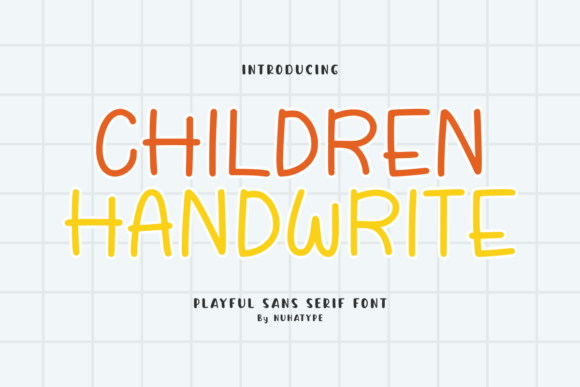
Discover the Joy of Handwritten Creativity
Do you remember the feeling of holding a crayon in your hand, scribbling down your first words, and watching them come to life? For many of us, that spark of creativity never fades. As a designer, you’re likely no exception. Whether you’re crafting for kids or simply looking for a way to add a personal touch to your projects, the right font can make all the difference.
Enter the Children Handwrite Font, a charming sans serif handwriting font that captures the essence of a child’s playful scribbles. With its soft, friendly, and natural look, this font is perfect for a wide range of creative projects, from craft projects and planners to kids’ worksheets and classroom printables. Its versatility and ease of use make it a valuable addition to any designer’s toolkit.
Key Features of Children Handwrite Font
- Font Style: A playful, handwritten font designed to resemble children’s handwriting, perfect for adding a personal touch to designs.
- Unique Characteristics: The font features subtle imperfections and variations in letterforms, giving it a natural, hand-written feel that is both charming and authentic.
Designer Review: Children Handwrite Font
Overall, I’m impressed with the whimsical charm of the Children Handwrite Font. ✨ Its playful, handwritten style is perfect for adding a touch of personality to children’s books, educational materials, and other projects that need a youthful feel.
- Unique Character Set: The font comes with a wide range of characters, including numbers, punctuation, and symbols, which is a big plus for designers who want to create engaging and interactive content.
- Good for Display Use: The font’s irregularities and imperfections make it great for display purposes, such as headings, titles, and short blocks of text.
- Customization Options: The font offers various customization options, including font sizes, colors, and spacing, which gives designers more control over the final output.
However, there are a few limitations to keep in mind: ⚠️ The font can be difficult to read in small sizes, and its irregularities may make it challenging to use for large blocks of text. Additionally, the font’s charm may not appeal to all designers, and some may find it too childish or distracting.
Overall, I think the Children Handwrite Font is a great choice for designers who want to add a playful, handwritten touch to their projects. While it may have its limitations, its unique character set and customization options make it a versatile and engaging font that can add a lot of personality to a design.
The Children Handwrite Font is perfect for creating playful and whimsical designs, such as:
– Children’s book illustrations
– Party invitations and decorations
– Educational materials and worksheets
– Social media graphics and advertisements
– Tips for getting the most out of this font include experimenting with different font sizes, colors, and effects to create a unique look.